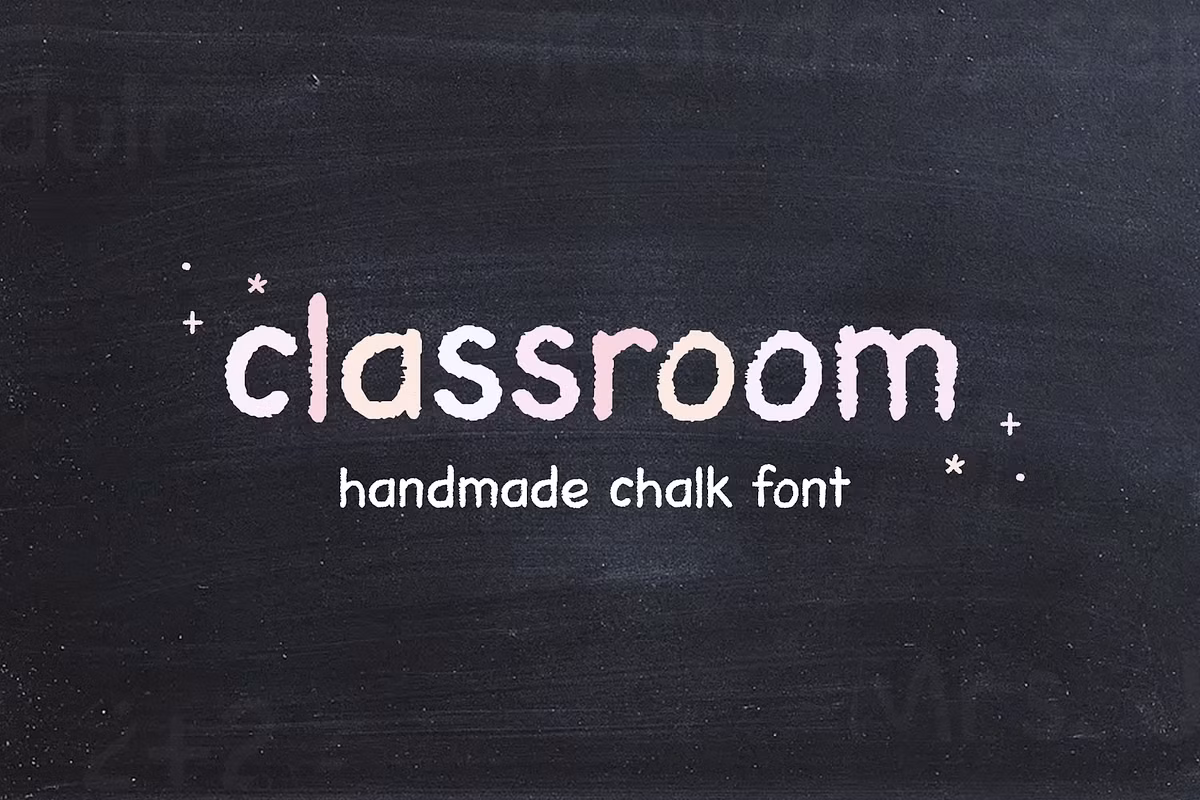
The Classroom | Chalk Font Free Download is a playful and educational typeface designed to bring a schoolroom feel to your designs. With its chalk-like texture and bold, readable letterforms, this font is perfect for creating fun and engaging designs for educational materials, school projects, posters, and social media graphics. Whether you're designing for a classroom, a children's event, or a back-to-school campaign, Classroom offers the perfect blend of fun and functionality.
Classroom | Chalk Font Free Download is ideal for designers looking to add a nostalgic, handwritten feel to their work. Perfect for educational branding, kids' products, or any project that needs a playful, casual vibe, this font will enhance your designs with a charming chalkboard style. Download it today and give your projects an engaging, school-inspired look!